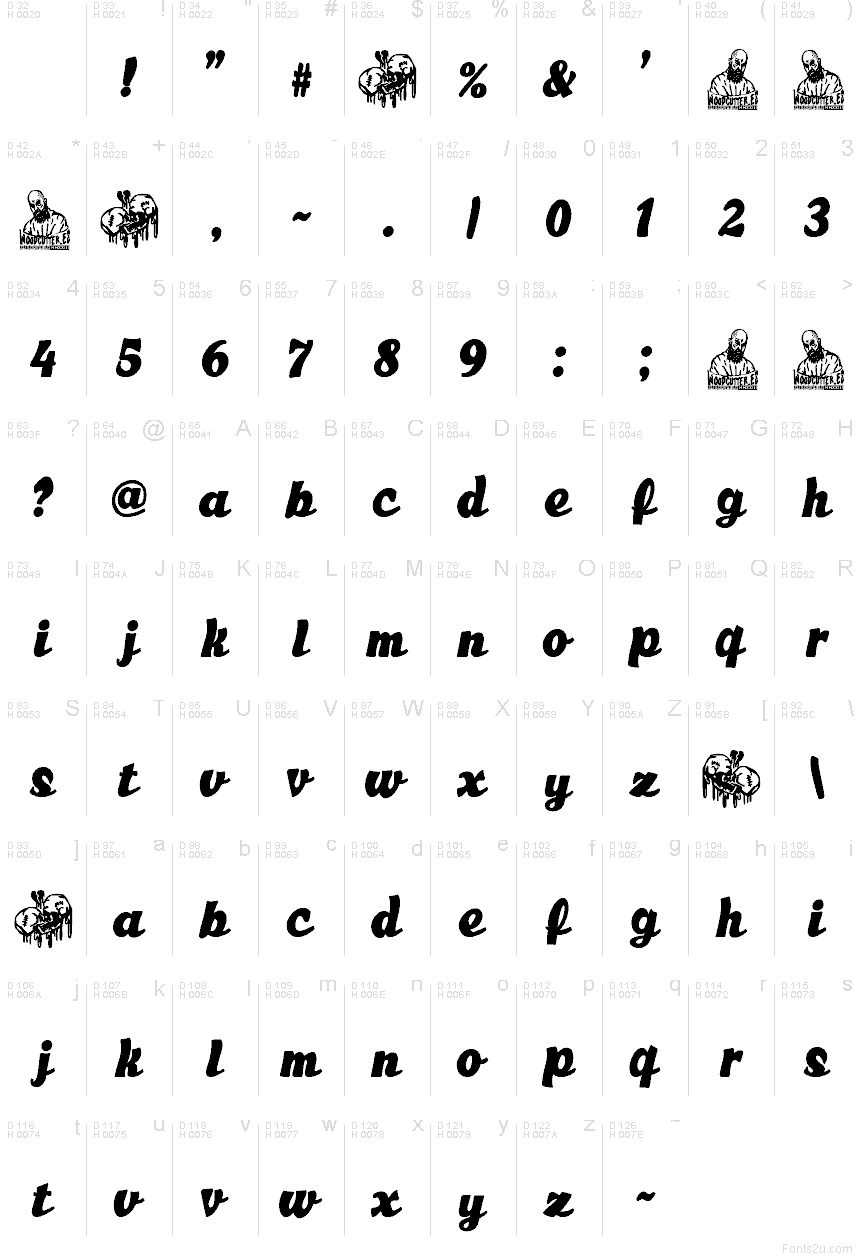
Good Morning My Love
Good Morning My Love font by Woodcutter is a free romantic script typeface that turns any layout into a handwritten love note. Its bold, inky strokes and tightly connected letters feel like they were brushed across the page in one smooth motion, giving words a warm, intimate energy. Rounded curves and a gentle slant add a playful rhythm that’s sweet without becoming sugary, so your message still feels personal and sincere.
Using Good Morning My Love, you can bring charm to Valentine’s cards, wedding signage, anniversary flyers, love-themed social posts, gift packaging, and cozy quote prints. This free font shines when used large, letting those thick, velvety strokes really show. Pair it with a clean sans serif for body text to keep everything legible while letting the script carry the emotion.